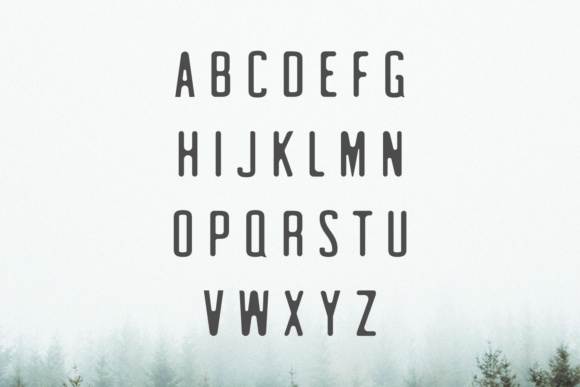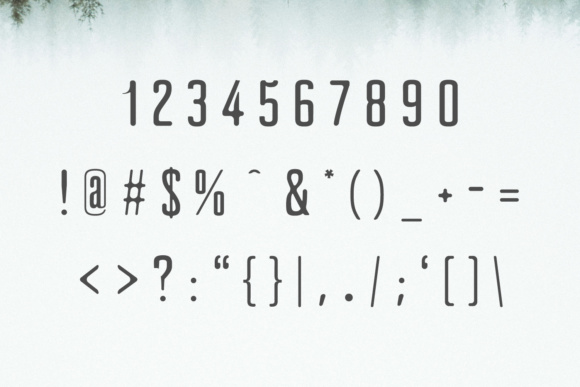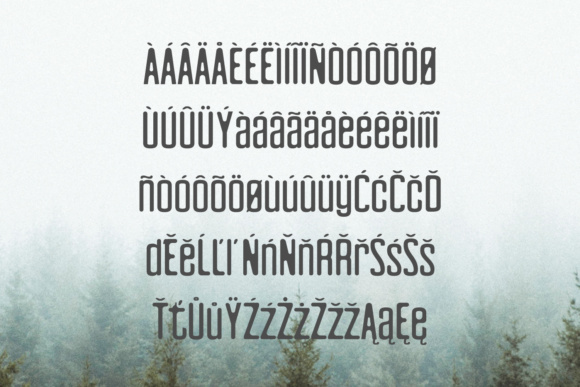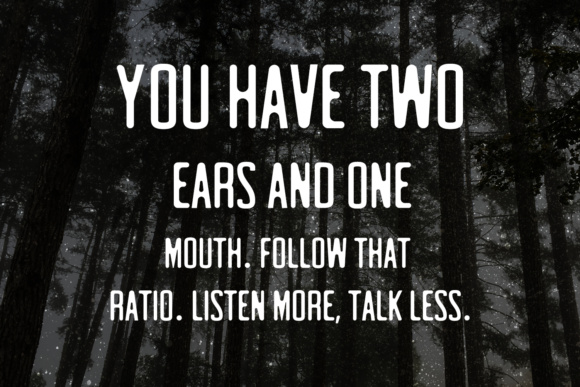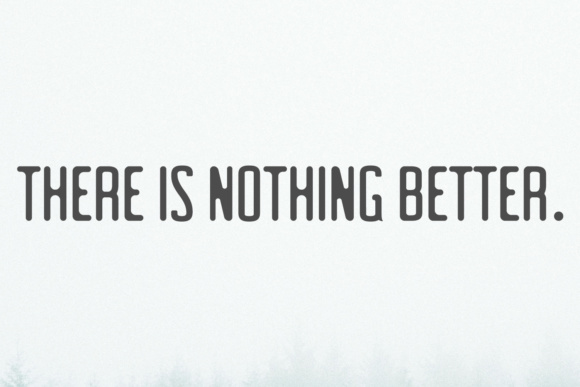
Discover the Versatility of Clarra Family Font: A Designer’s Delight
In the world of typography, the right font can make all the difference in elevating your design to the next level. For designers and crafters looking for a versatile and visually appealing font, the Clarra Family Font is an excellent choice. This strong and smooth rounded sans serif family is perfect for a wide range of design projects, from logos and texts to presentations, posters, magazines, and more.
What Makes Clarra Family Font Stand Out?
The Clarra Family Font boasts a unique combination of strength and smoothness, making it an ideal choice for designers seeking a font that can convey both professionalism and approachability. Its rounded sans serif design gives it a friendly and approachable feel, while its clean lines and precise curves ensure that it remains highly legible, even at smaller sizes.
5 Weights for Endless Design Possibilities
One of the standout features of the Clarra Family Font is its comprehensive range of weights, with five options to choose from. This versatility allows designers to experiment with different looks and feels, from bold and dramatic to light and airy. Whether you’re creating a logo, heading, or body text, the Clarra Family Font has a weight to suit your needs.
The Clarra Family Font is incredibly versatile, making it suitable for a wide range of design projects. Here are just a few examples of how you can use this fantastic font:
- Logos: Create a bold and memorable logo with the Clarra Family Font’s heavier weights.
- Texts: Use the lighter weights for body text, ensuring that your content is easy to read and understand.
- Presentations: Add a professional touch to your presentations with the Clarra Family Font’s clean and crisp lines.
- Posters: Make a statement with the Clarra Family Font’s bold weights, perfect for eye-catching headlines.
- Magazines: Use the Clarra Family Font to create a cohesive and stylish look throughout your magazine.
- Notices: Ensure that important notices and announcements are clear and easy to read with the Clarra Family Font.
Aesthetic Appeal: Classy and Timeless
The Clarra Family Font looks stunning in a variety of settings. For a classy look, try using it in all caps with a wide-set spacing. The result is a sophisticated and elegant design that’s perfect for high-end brands or luxury products. Alternatively, use the font in a mix of capital and lowercase letters for a timeless look that’s both approachable and refined.
Tips for Getting the Most Out of Clarra Family Font
To make the most of the Clarra Family Font, here are a few tips to keep in mind:
- Experiment with weights: Don’t be afraid to try out different weights to find the perfect balance for your design.
- Play with spacing: Adjust the spacing between letters to create a unique and eye-catching look.
- Mix and match: Combine the Clarra Family Font with other fonts to create a distinctive and visually appealing design.
The Clarra Family Font is a designer’s dream, offering a perfect blend of style, versatility, and legibility. With its range of weights, aesthetic appeal, and suitability for a wide range of design projects, it’s an excellent addition to any design toolkit. Whether you’re a seasoned designer or a crafty DIY enthusiast, the Clarra Family Font is sure to become a favorite.